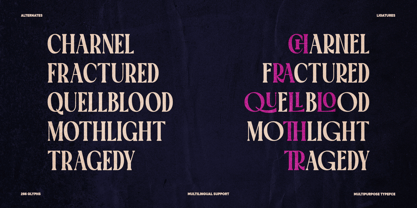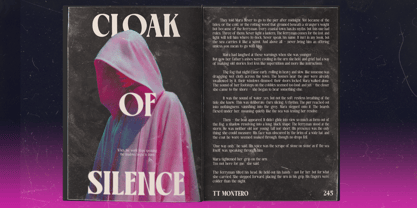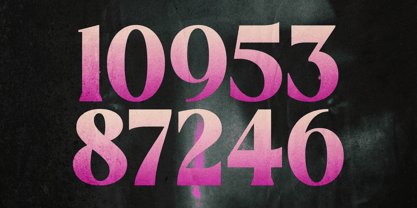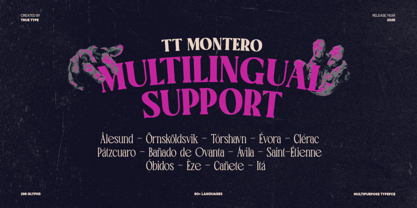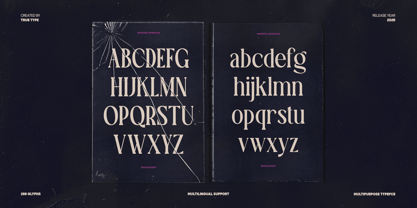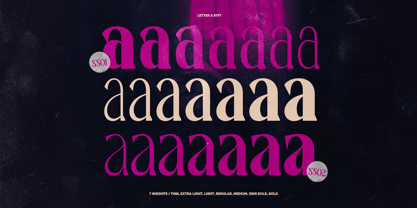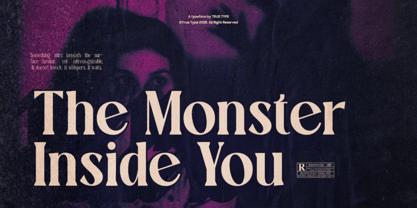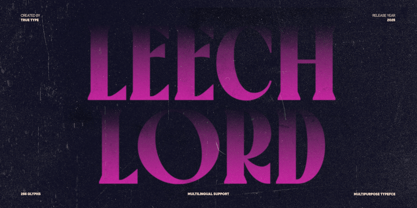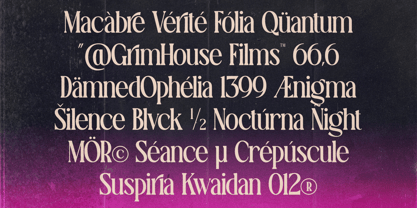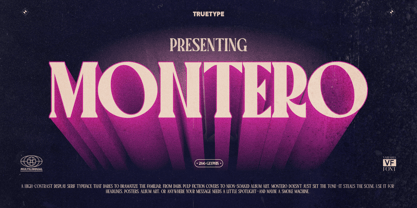
TRT Montero
by True Type Lab
The TRT Montero Font Family was designed by Yusilo Oktaprima Ardani and published by True Type Lab. TRT Montero contains 7 styles and family package options.
TT Montero is a condensed serif typeface that combines timeless elegance with a sleek, modern structure. Its narrow proportions and graceful serif details make it ideal for designers seeking both space efficiency and refined sophistication. Designed with a focus on balance and clarity, TT Montero supports small caps and OpenType features, offering flexibility across a wide range of editorial and branding projects.
With its tall letterforms, sharp serifs, and elegant contrast, TT Montero is perfect for use in headlines, fashion campaigns, packaging, and typographic quotes. Its condensed shape allows more content to fit in limited space without compromising readability — making it especially useful for magazine layouts, logo lockups, and digital platforms.
About True Type Lab
Founded by Yusilo Oktaprima Ardani, True Type Lab is a creative studio dedicated to exploring typography through a balanced approach of artistry and functionality. What began as a deep fascination with letterforms and typographic details has evolved into a studio that crafts typefaces with strong personality, distinctive character, and versatile usability.At True Type Lab, every letter is treated as a work of art with a vital role in delivering visual messages. We combine timeless design principles with modern techniques, creating fonts that are not only aesthetically pleasing but also optimized for diverse applications—both in print and digital environments. Our design range includes elegant serifs, modern sans-serifs, and experimental display fonts, each developed through thorough research and a meticulous creative process.With a focus on readability, flexibility, and visual identity, True Type Lab is committed to creating typefaces that empower designers, brands, and creators to craft impactful visual communication. From global brand identities to independent editorial projects, our fonts are designed to help stories and messages come alive on every page.